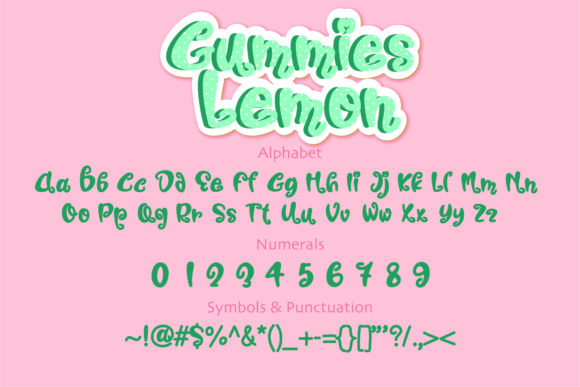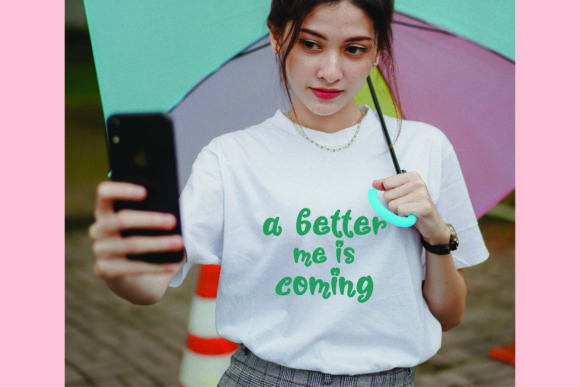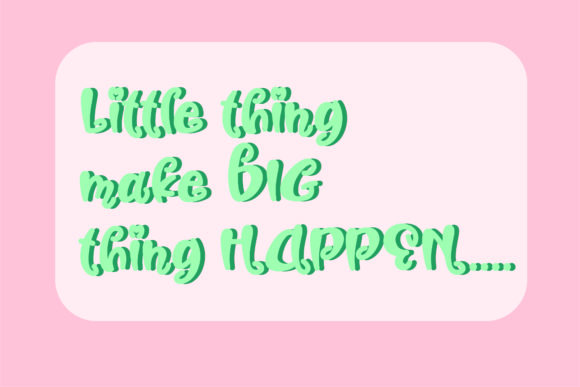
Introduction to Gummies Lemon Font
Gummies Lemon is a cute and colorful display font.
It embodies playfulness and authenticity and is the perfect choice for any children activity or school project Add this chunky lettered font to your designs and notice how it makes them come alive.